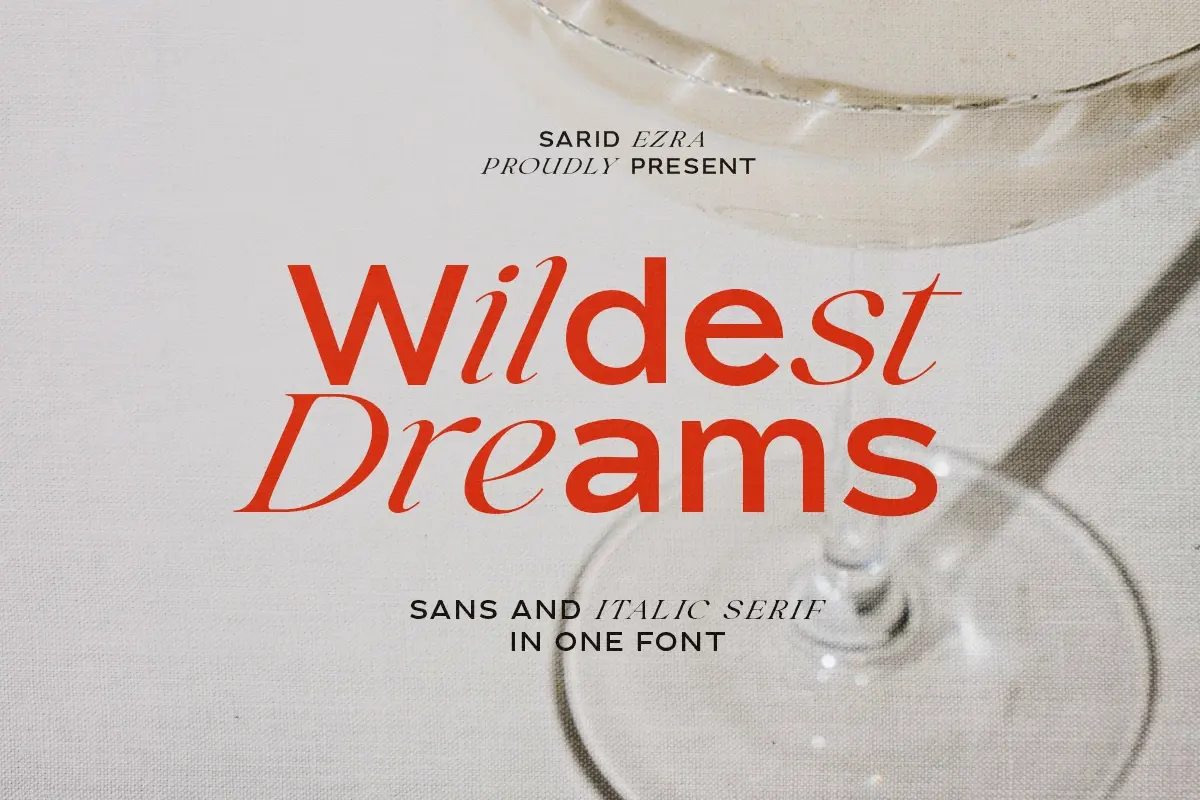
Wildest Dreams - Display Font Free Download
Wildest Dreams – Display Font Free Download
With a whimsical and powerful design, this font is ideal for designs that want to stand out and make an impact. It includes uppercase and lowercase letters, numerals, punctuation, and multilingual support, ensuring flexibility for a variety of design needs.
Whether you're working on a daring brand identity, crafting captivating event posters, or designing something with a touch of creativity, Wildest Dreams adds a dramatic and stylish element to your typography.